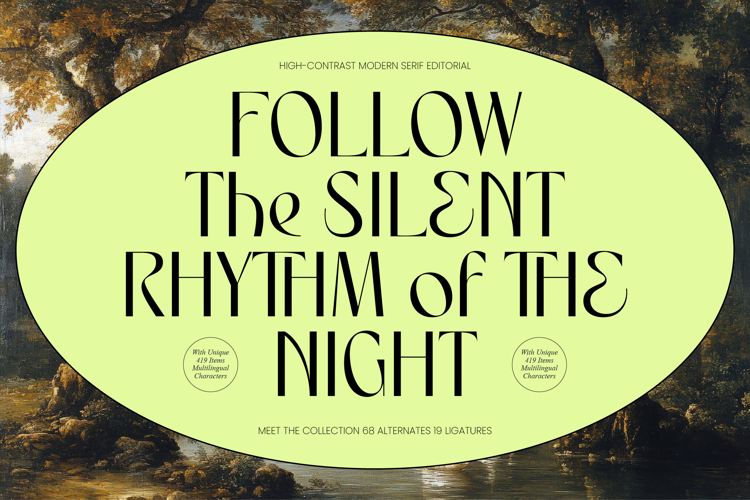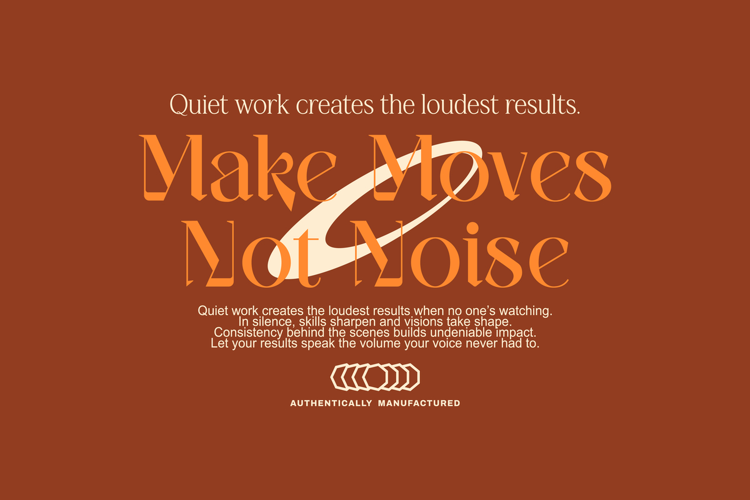
Rhythm The Night - Modern Editorial Serif
Elevate your creative vision with a typeface that embodies pure sophistication and contemporary flair. Rhythm The Night - Modern Editorial Serif is a masterpiece of design, characterized by its striking high-contrast strokes and razor-sharp, elegant serifs. This font captures a luxury aesthetic that is both timeless and cutting-edge, ensuring your typography stands out with a commanding presence. By blending classic proportions with a modern editorial twist, it delivers a high-impact visual experience that resonates perfectly with high-end audiences.
Experience unparalleled functionality designed to meet the rigorous demands of the modern global landscape. With its extensive multilingual support, Rhythm The Night - Modern Editorial Serif adapts seamlessly across global markets, making it incredibly versatile for international projects. Boasting a rich library of 68 alternates and 19 ligatures, this collection provides designers with over 419 items to craft unique, customized layouts. Its technical precision ensures that every character maintains typographic excellence across various digital platforms and print media.
Transform your brand identity into a bold statement of style with a font built for high-end storytelling. The ideal application for Rhythm The Night - Modern Editorial Serif includes luxury branding, editorial design, premium packaging, and fashion magazine spreads. It is perfect for creating sophisticated logotypes, cinematic title sequences, and impactful advertising campaigns that require a touch of class. Whether utilized for a minimalist web header or a large-scale printed billboard, its graceful silhouettes and dramatic weight variations ensure maximum engagement.